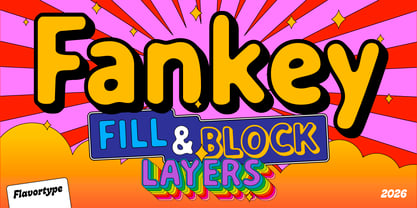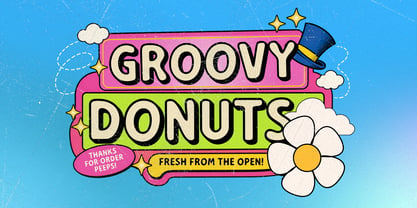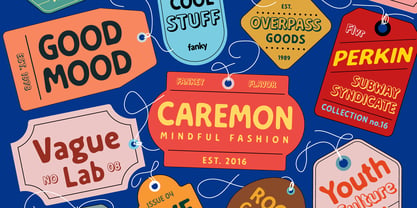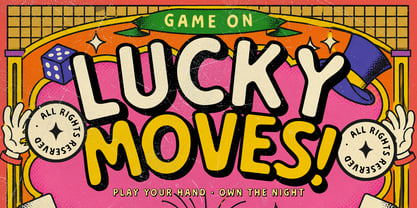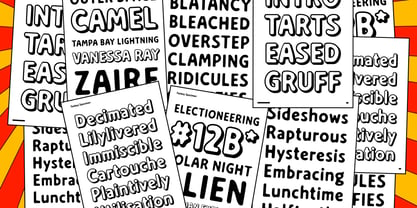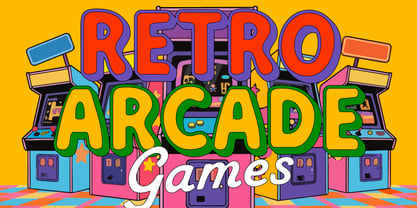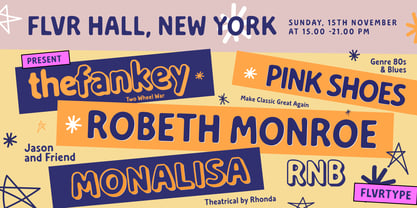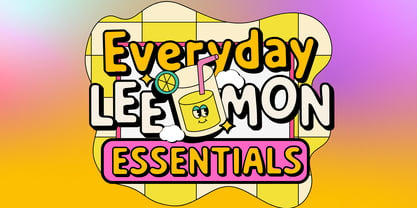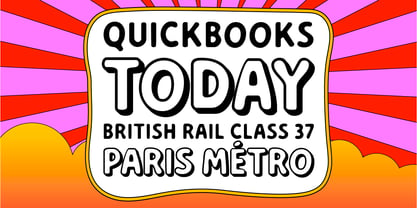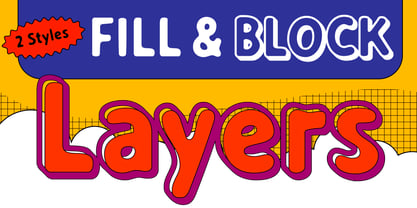
Fankey
The Fankey Font Family was designed by Ilham Herry, Adam Fathoni Haris, panji nugroho, Rizky Setyaludin and published by Flavortype. Fankey contains 2 styles and family package options. More about this family
Meet Fankey, a chunky and playful display font made for designs that need a little more personality. It has that fun retro feel you might find on old game posters, carnival signs, snack packaging, and colorful 70s-inspired graphics, but with a fresh and modern finish.
Fankey comes with Fill & Block styles, so you can use it on its own or combine both styles to create bold layered lettering. Add different colors, offsets, and outlines and it quickly turns into a fun typographic illustration without needing too much extra work.
The shapes are rounded, slightly quirky, and full of character, making Fankey especially nice for posters, logos, packaging, T-shirts, stickers, children’s designs, food branding, headlines, social media graphics, and retro-inspired artwork.